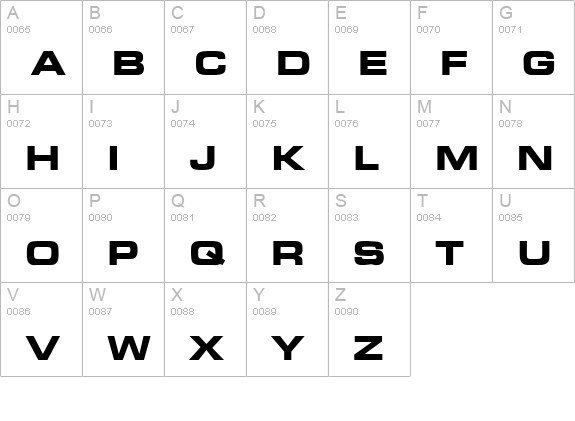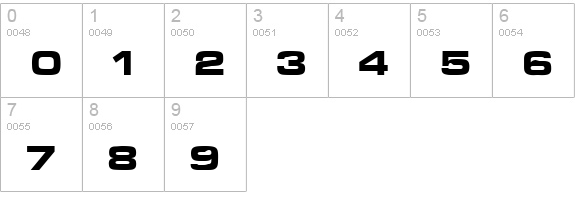
Green Mountain 3 is a versatile and elegant font that exudes a sense of sophistication and modernity. Its clean lines and timeless appeal make it a perfect choice for a wide range of design projects, from branding to editorial design. This font strikes the perfect balance between classic and contemporary, making it suitable for both traditional and cutting-edge designs. And the best part? Green Mountain 3 is completely free to download at FontsMarket.com. This means you can start using this beautiful font in your projects right away, without having to worry about any licensing fees. Don't miss out on the opportunity to add this versatile and stylish font to your collection today!